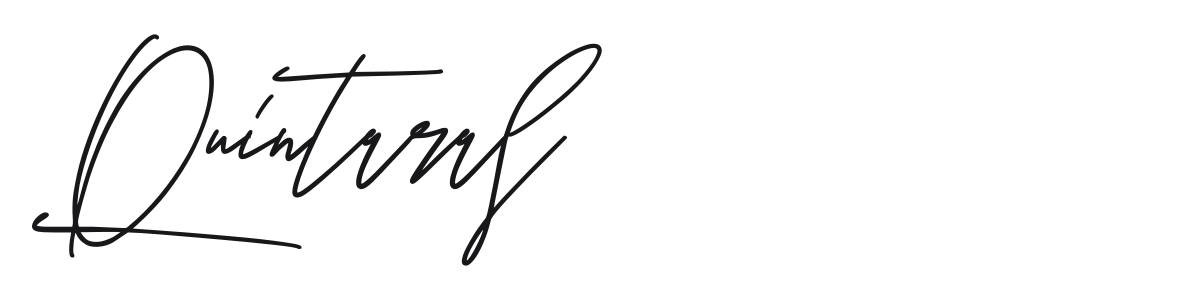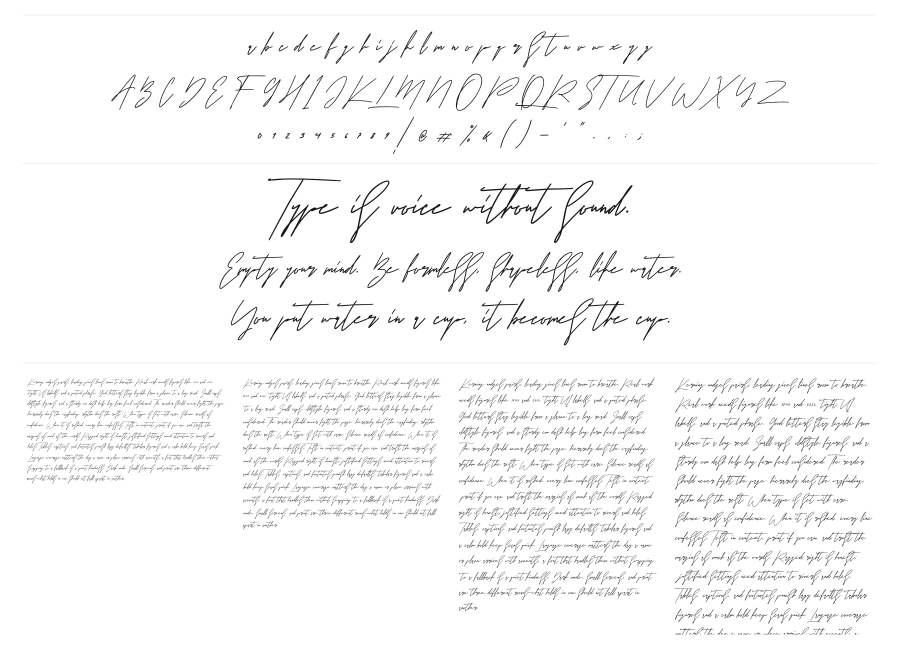
Quintaras
Quintaras is a flowing signature script with ultra-thin strokes and the spontaneous energy of a real pen on paper. Long looping ascenders and sweeping descenders tangle expressively across the baseline, giving it an authentic, high-fashion feel. It carries the kind of casual confidence that works well for luxury branding, editorial headlines, and wedding stationery.